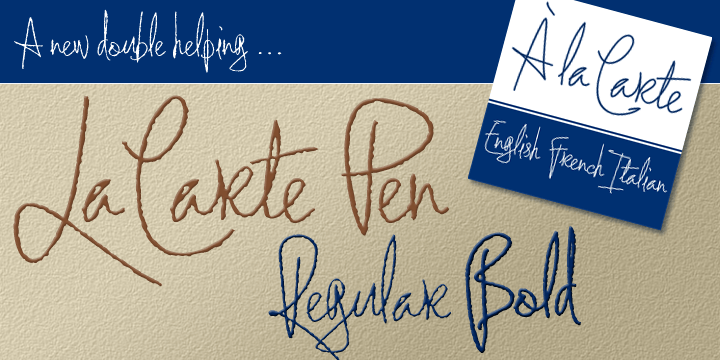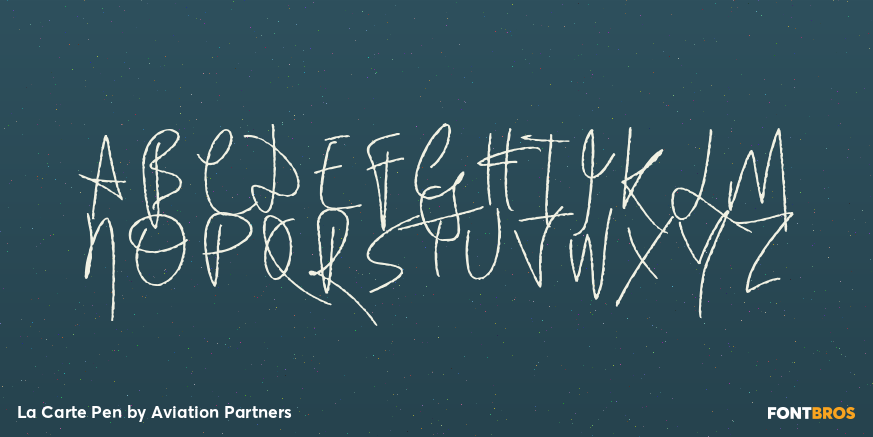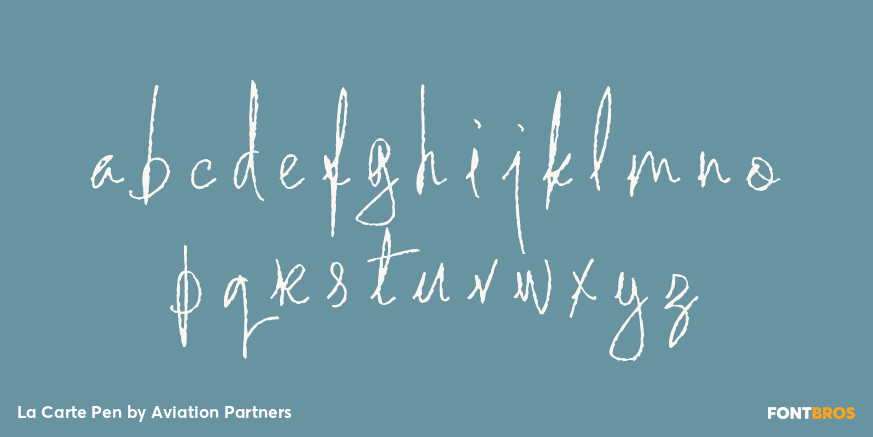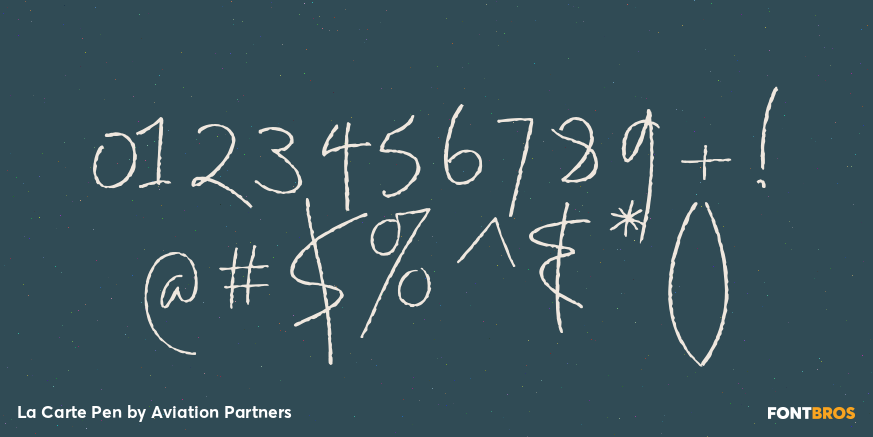
La Carte Pen
Font Family by Aviation Partners
La Carte Pen is a paper textured version of the popular La Carte font.
Inspired by a series of handwritten menus produced in 1980, La Carte is a stylish but easy-to-read script that sets as well in body copy as it does in headlines.